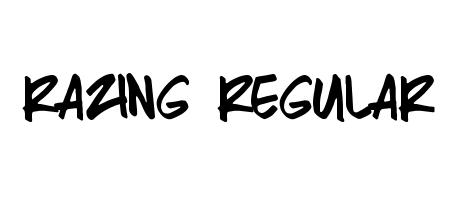
Razing
By Marcelo Rizzetto
Razing Regular is a bold, hand-painted style font. Its thick strokes and slightly uneven lettering give it a raw, energetic feel. The letters are chunky and possess a playful, almost rebellious character, suggesting movement and a sense of immediacy. The overall impression is one of informal boldness and vibrant energy.